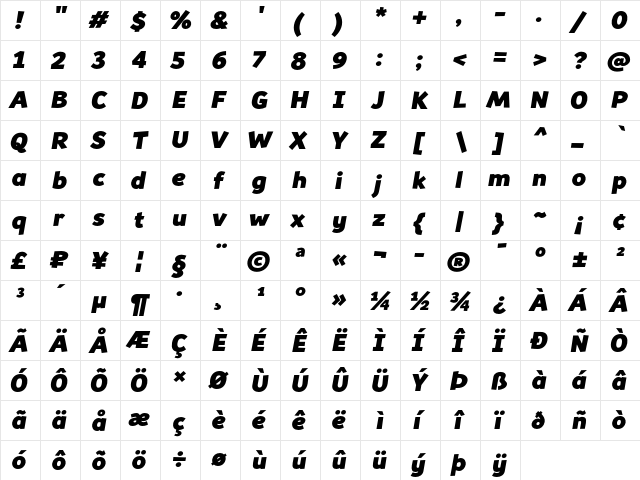
Souses Regular
Design Context for Souses Typeface
Souses takes a measured approach to typography — its balanced proportions and neutral character make it a reliable workhorse for both digital and print work.
Pro Tip: Pair Souses with a font of contrasting weight or personality to build a more expressive typographic hierarchy.